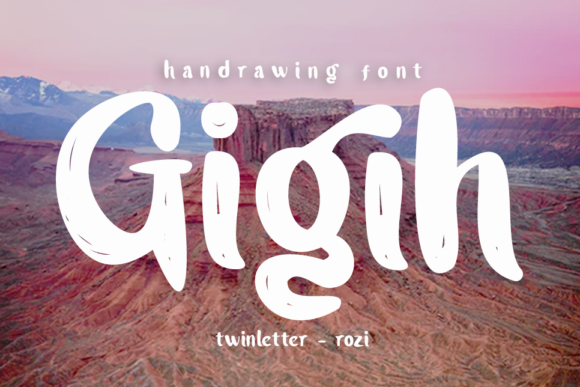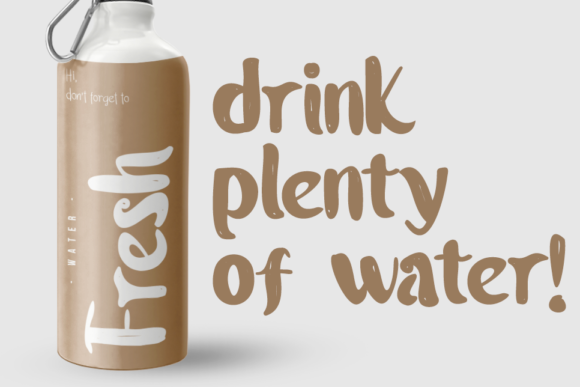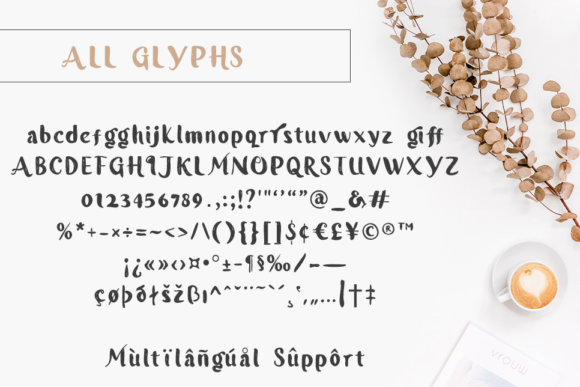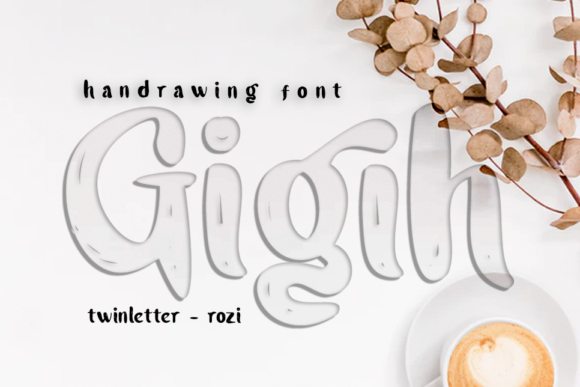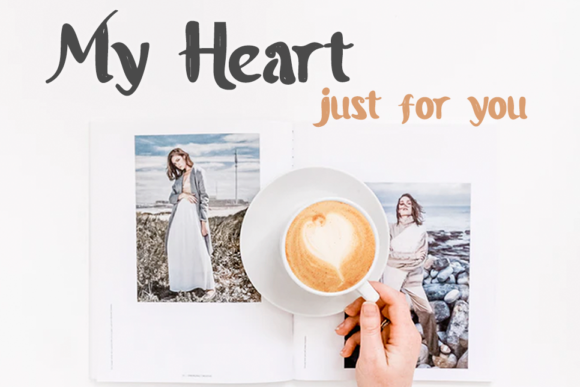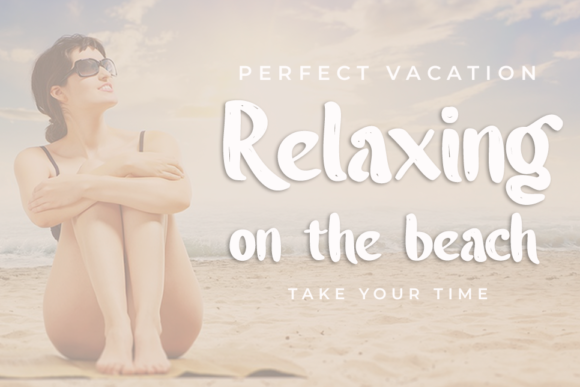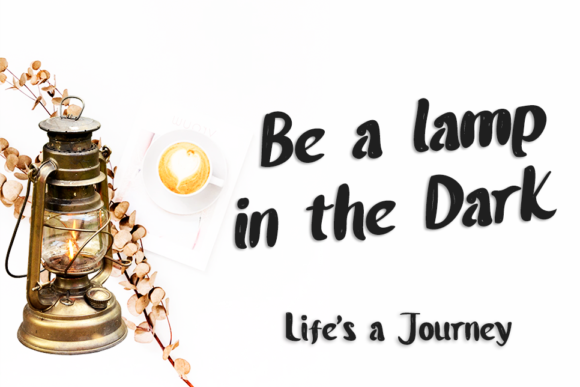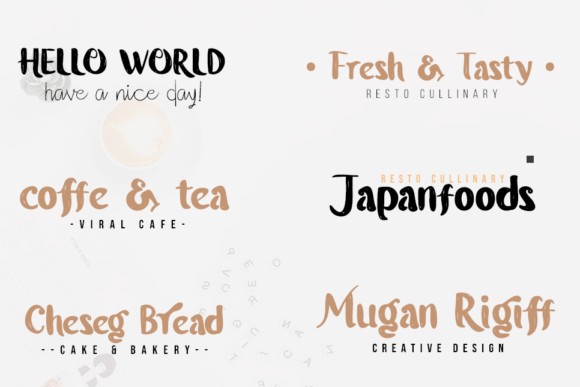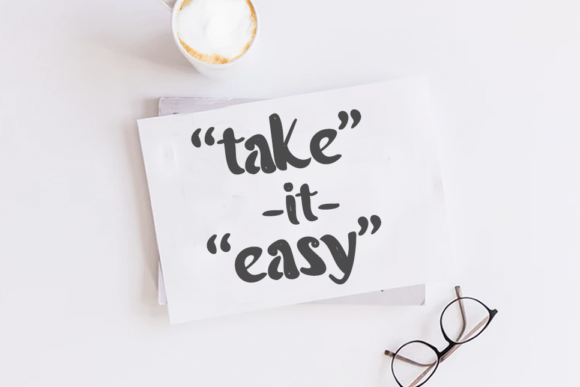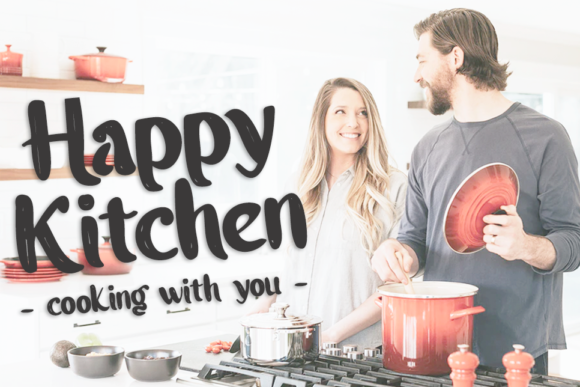
Gigih Font
About Gigih Font
Gigih is a casual, fun handwritten font. Clean and modern, this font is the perfect fit for all of your logos, branding, social media, and crafty DIY projects.